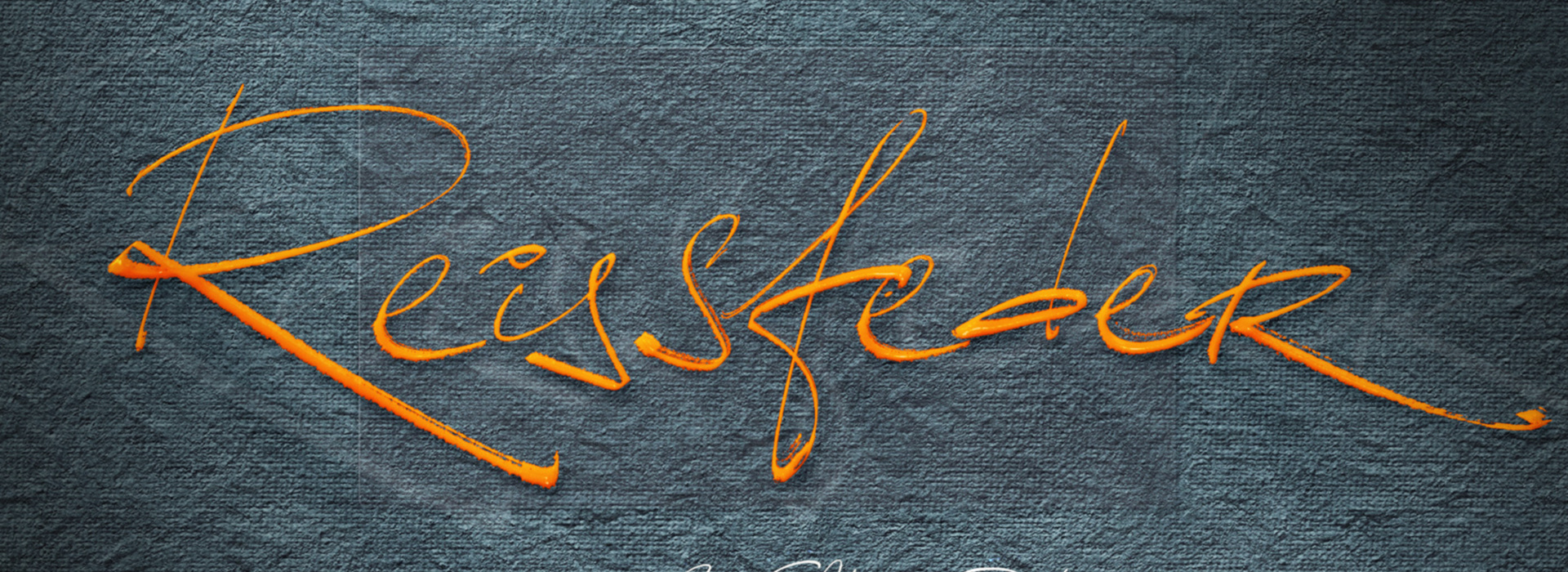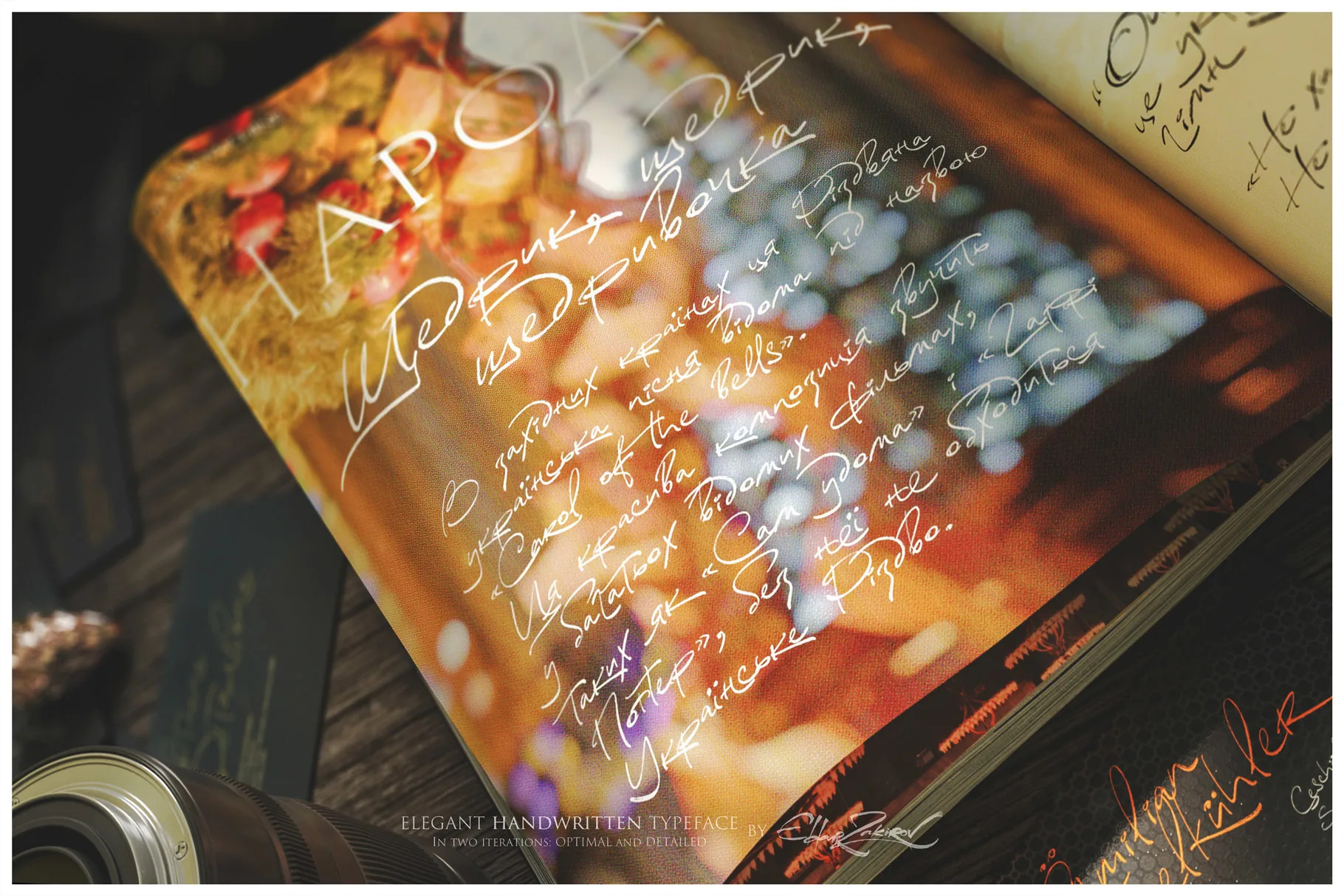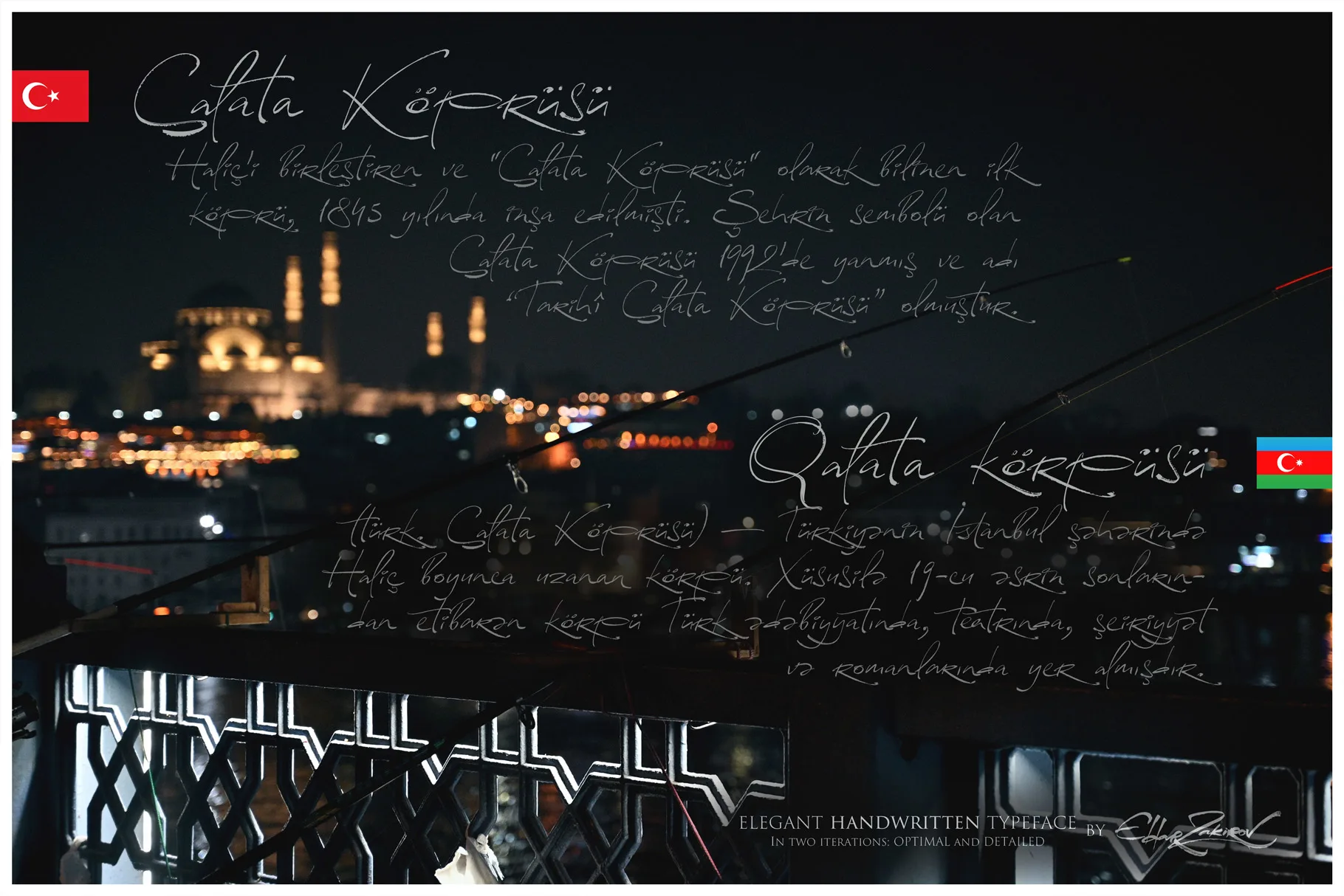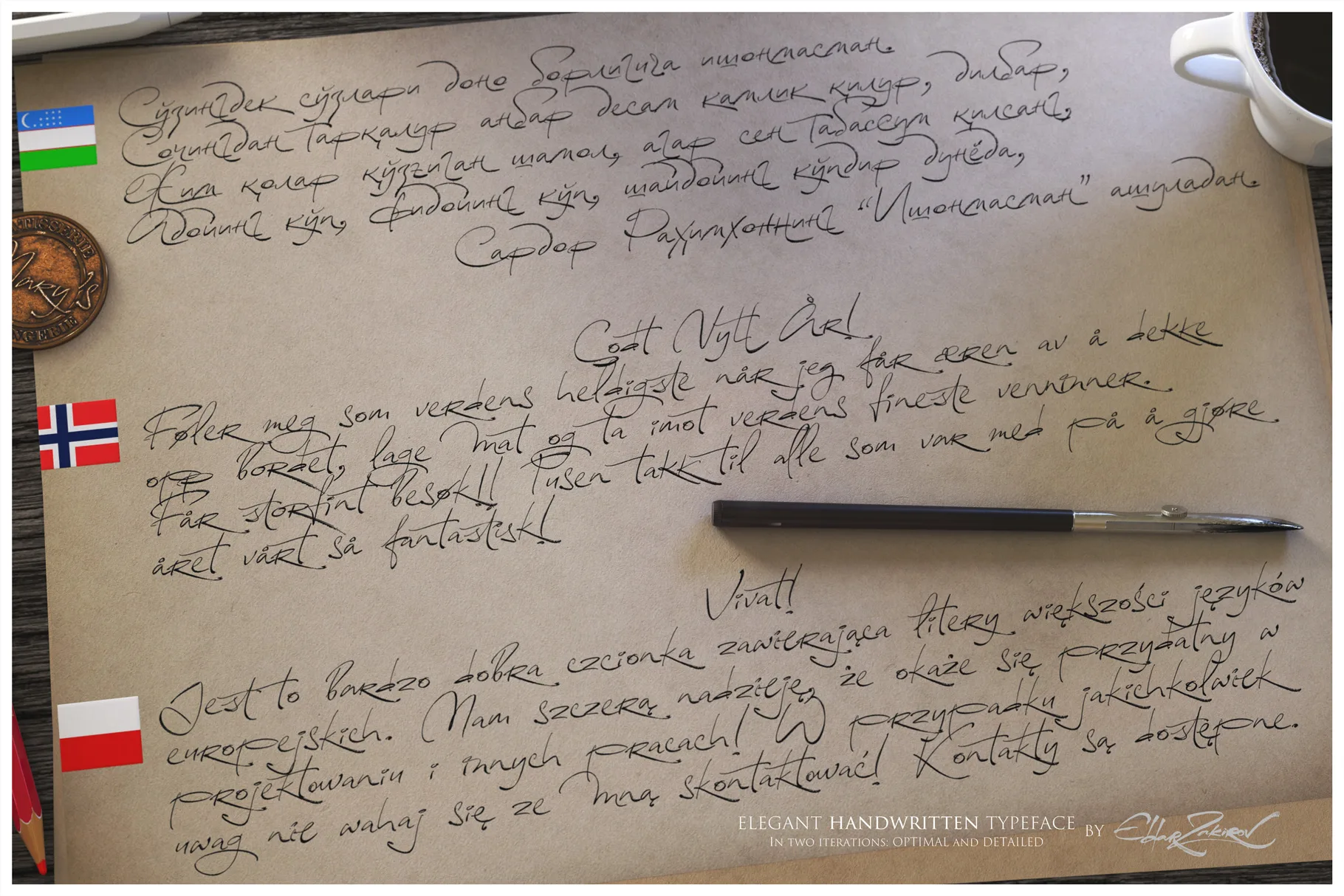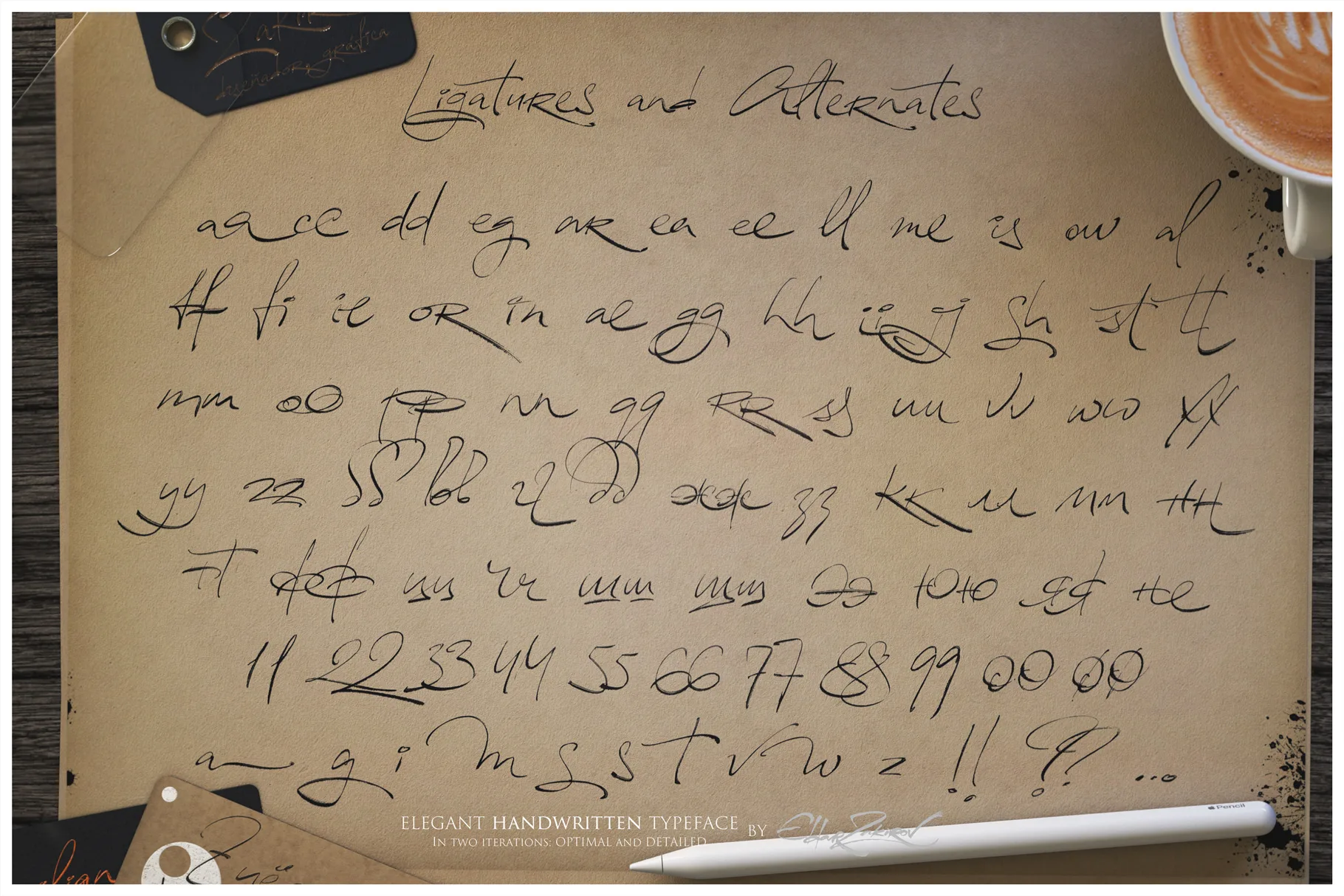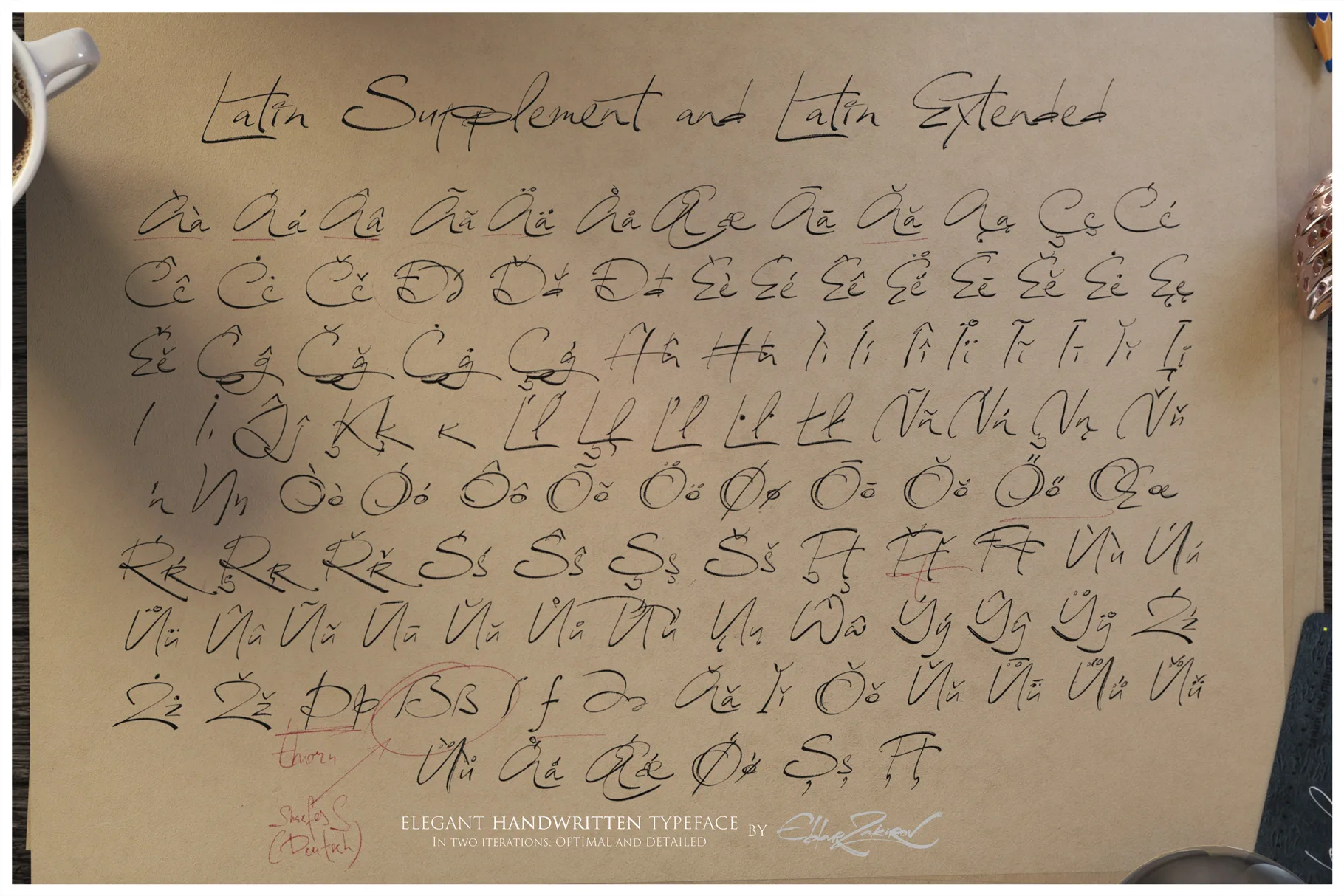
Reissfeder. The Handwritten Font in Two Options
The Elegant Handwritten Typeface in two options (Optimal and Detailed)
• This handwritten font with two iterations of detail contains almost the entire extended Latin alphabet, including special symbols, etc., supporting most languages using the Latin alphabet and math expressions.
• As well as Cyrillic alphabets, including Ukrainian, Uzbek, and other languages.
• Numerous ligatures and automatic replacement of alternating characters in OpenType versions of both fonts help to get an enhanced handwriting effect.
• And the high detail of the symbols makes it possible to use the Reissfelder fonts in large-sized inscriptions while preserving the impression of the work of a calligraphic instrument.
• Extended Latins & Кириллица (Cyrillics);
• Situative Alternates & Repetitive Alternations;
• Ligatures;
• Special symbols;
• Extended alphabets for various languages;
• Swashes